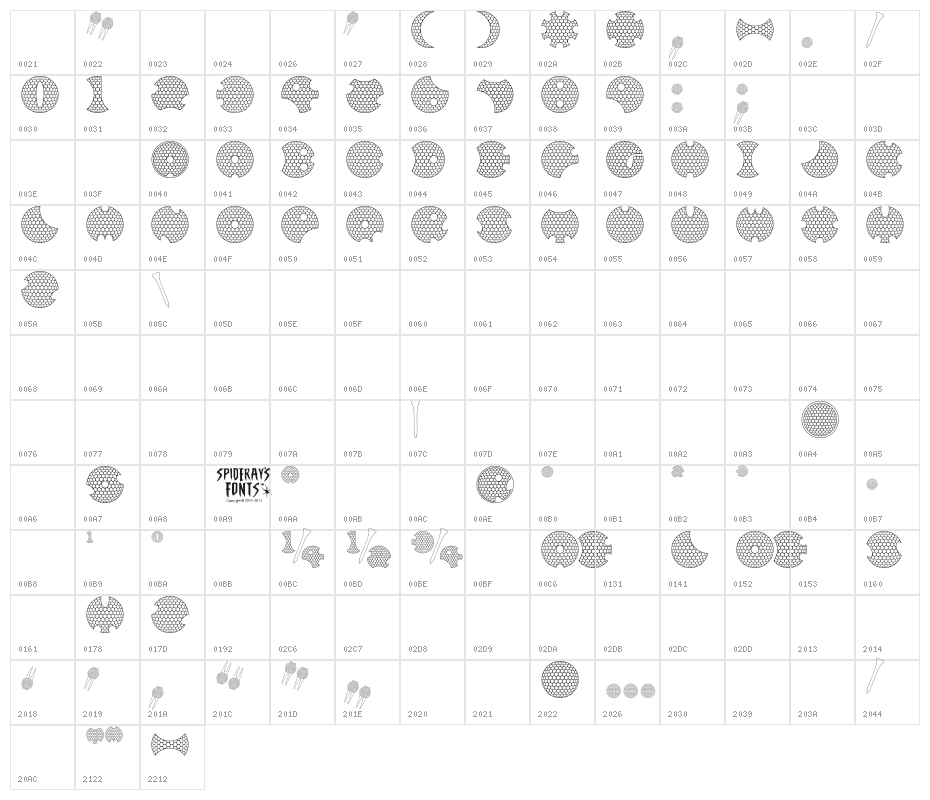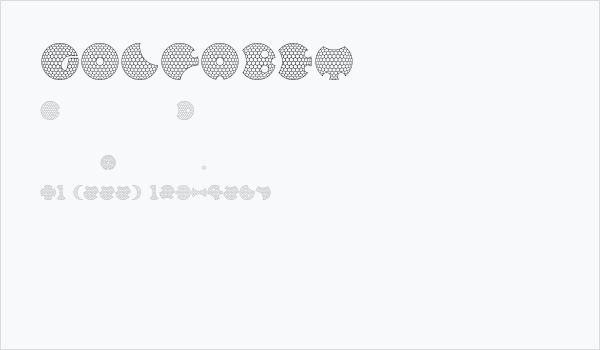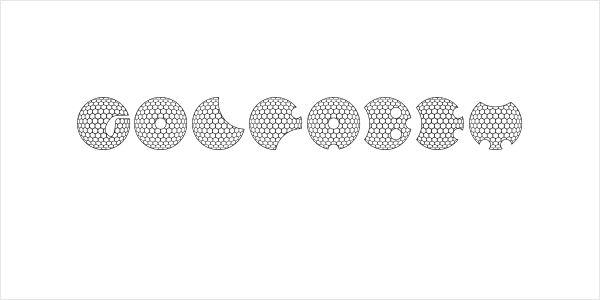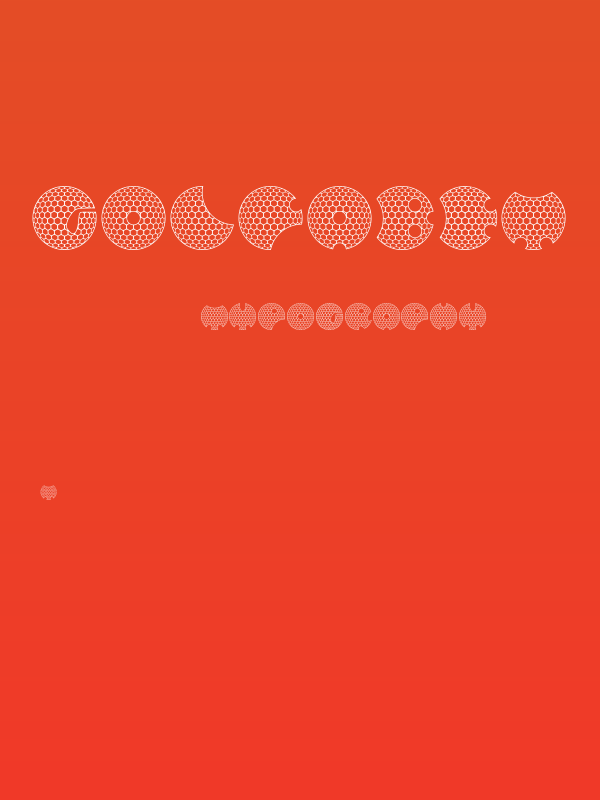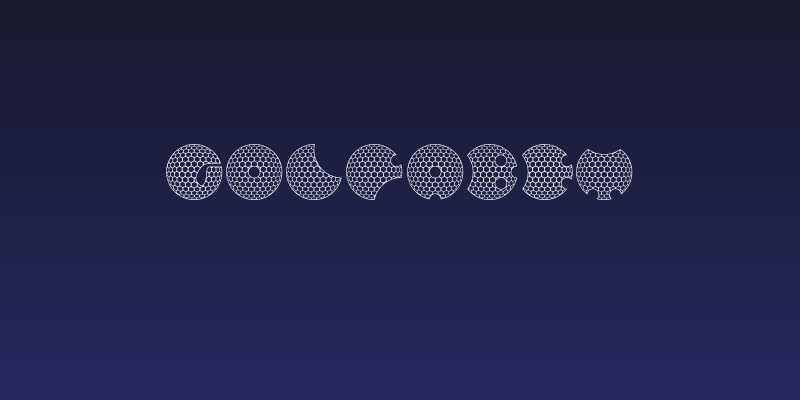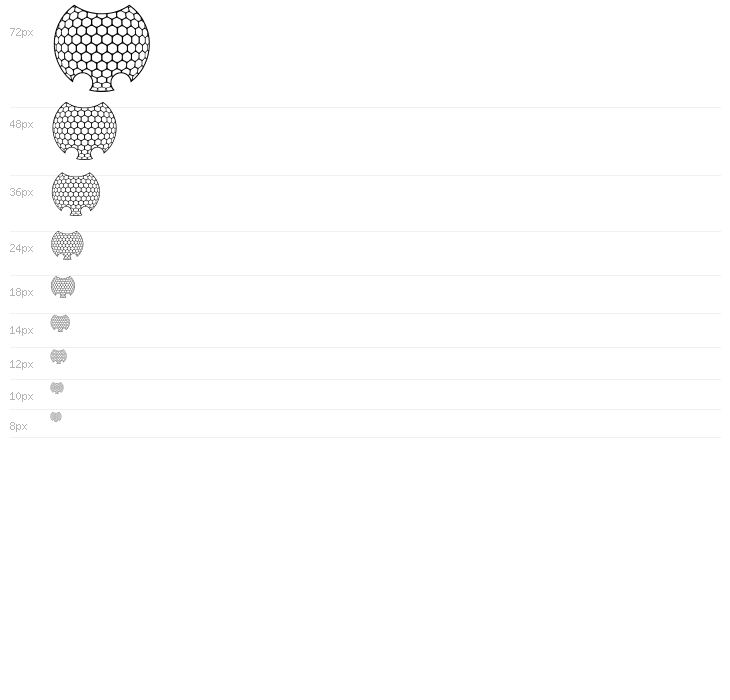
GOLFABET Font
GOLFABET Description
This playful and unique font features a golf ball texture, with each character designed to resemble the dimples of a golf ball. The letters and numbers are rounded and have a distinct, sporty appearance, making them stand out. The special characters incorporate elements like golf tees and balls, adding to the thematic consistency. This font is ideal for projects related to sports, especially golf, and can bring a fun, thematic touch to any design. Its decorative nature makes it more suitable for headlines or logos rather than body text.
| Overall Style | Decorative, Sporty |
| Proposed Projects | Ideal for sports-themed posters, golf event branding, playful logos, and themed merchandise. |